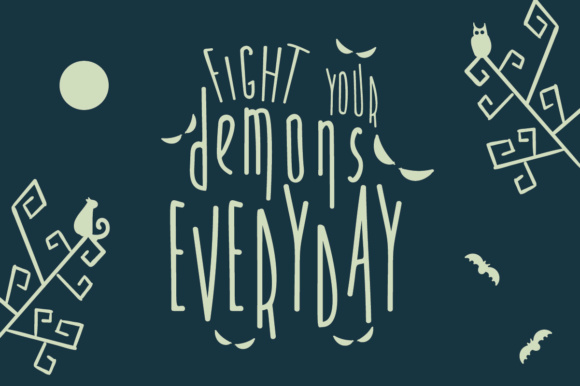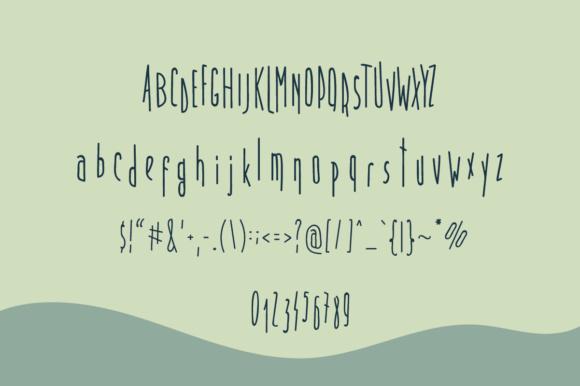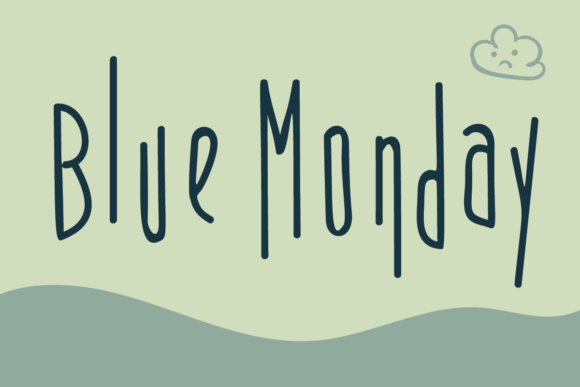
Introducing Blue Monday Font: Adding a Playful Touch to Your Designs
Are you tired of using the same old fonts in your designs? Look no further than Blue Monday Font, a thin, rounded, and stretched font that adds a playful touch to any text. With its unique and creative feel, Blue Monday Font is perfect for designers and crafters looking to make their work stand out.
What is Blue Monday Font?
Blue Monday Font is a distinctive font that boasts a thin, rounded, and stretched design. Its playful letters are carefully crafted to give your text a fun and carefree feel. Whether you’re working on a graphic design project, crafting a handmade card, or creating digital content, Blue Monday Font is the perfect choice.
Characteristics of Blue Monday Font
So, what makes Blue Monday Font so special? Here are some of its key characteristics:
• Thin and stretched design: Blue Monday Font has a slender and elongated design that gives it a unique and modern feel.
• Rounded edges: The font’s rounded edges add a touch of softness and playfulness to your text.
• Playful letters: Each letter in Blue Monday Font is carefully crafted to have a fun and carefree feel.
Benefits of Using Blue Monday Font
So, why should you choose Blue Monday Font for your next design project? Here are some benefits of using this font:
• Adds a creative touch: Blue Monday Font adds a unique and creative touch to your text, making it perfect for designers and crafters looking to stand out.
• Perfect for playful designs: The font’s playful feel makes it perfect for designs that require a fun and carefree touch, such as children’s party invitations or social media graphics.
• Versatile: Blue Monday Font can be used for a wide range of design projects, from digital content to handmade crafts.
In conclusion, Blue Monday Font is a unique and playful font that adds a creative touch to any design project. With its thin, rounded, and stretched design, it’s perfect for designers and crafters looking to make their work stand out. Whether you’re working on a graphic design project, crafting a handmade card, or creating digital content, Blue Monday Font is the perfect choice. So why not give it a try and see how it can elevate your designs?